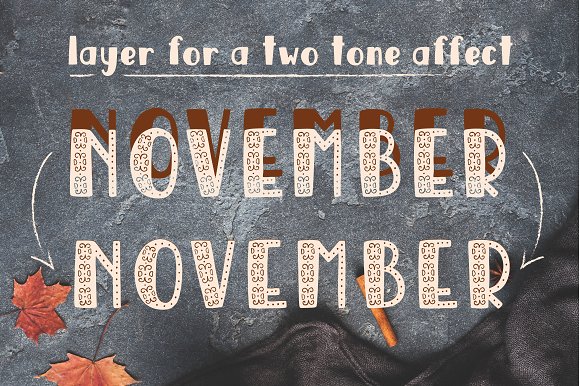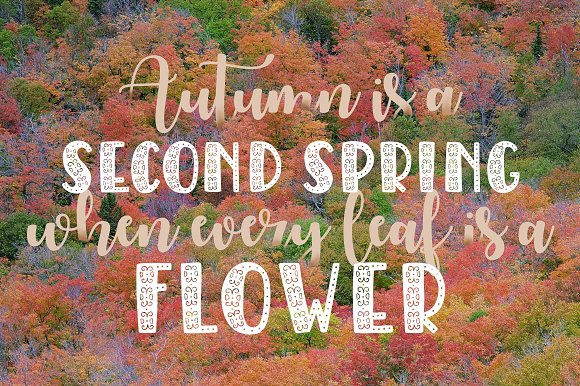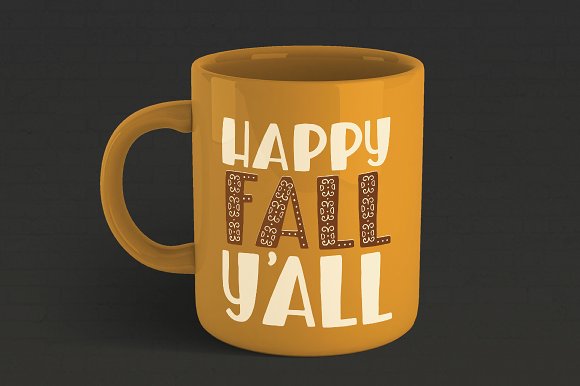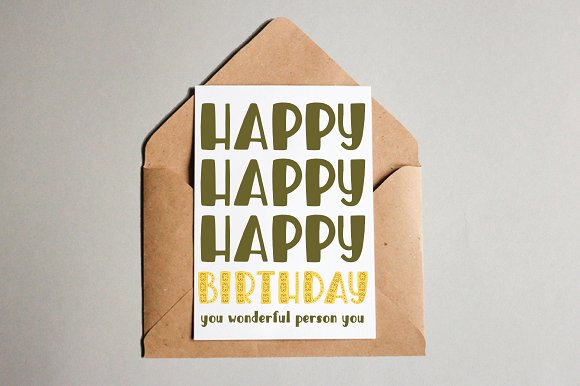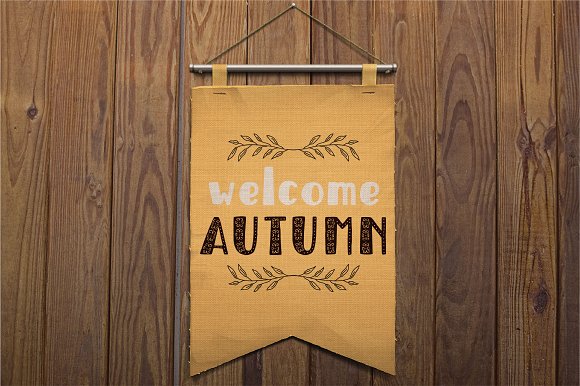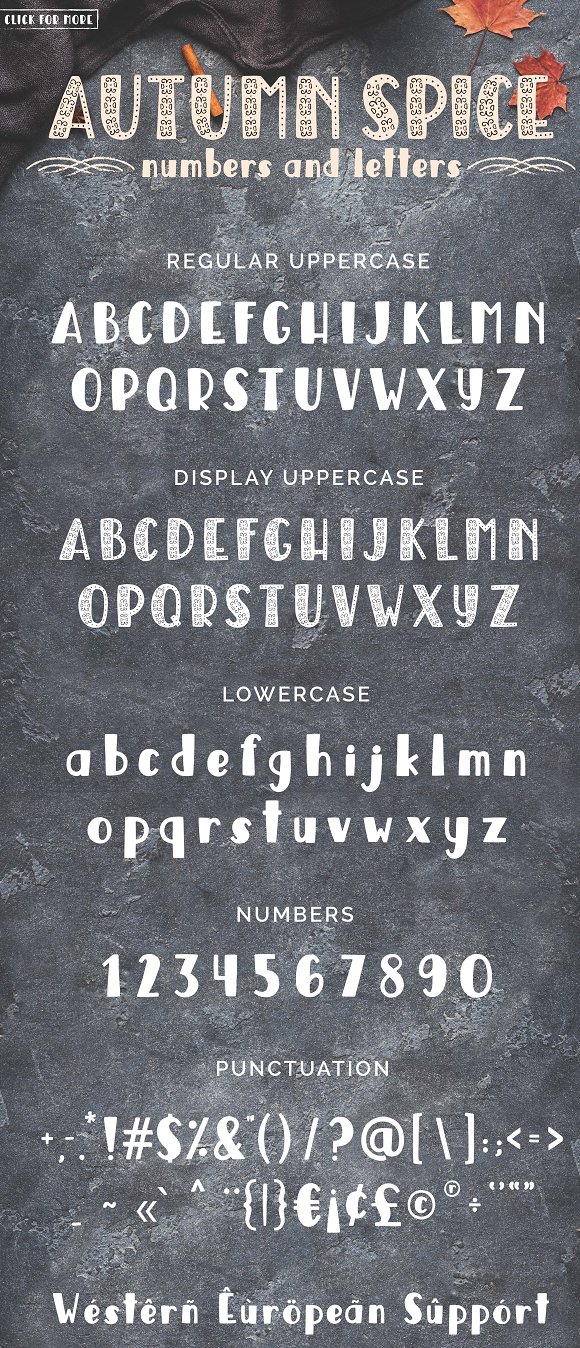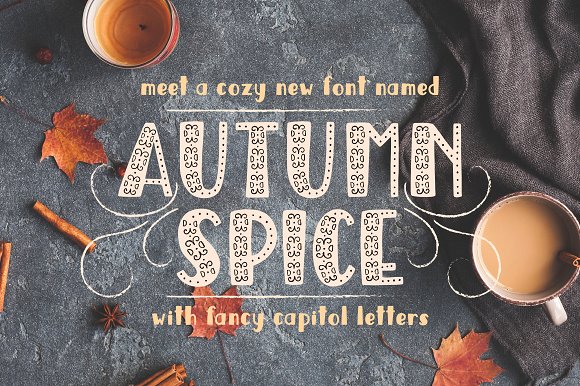
Autumn Spice Display San Serif Font
With an autumn chill in the air, reading a nice big book by the fire sounds lovely, right? Pair that with your favorite hot coco decorated with the lovely Autumn Spice Display Font and you have me sold! But this font isn’t just great for all your fall styled projects. Throw a light pink on it and it’s perfection for a little girls nursery or birthday celebration!